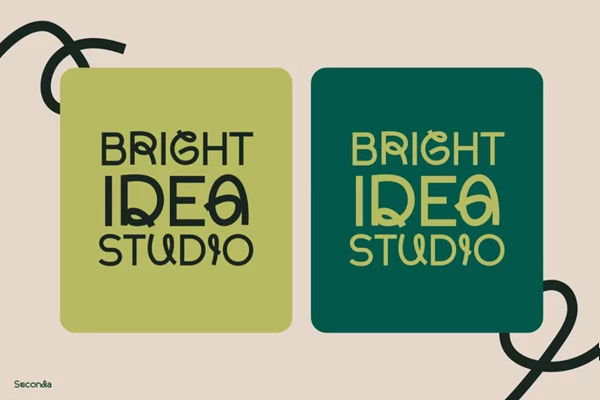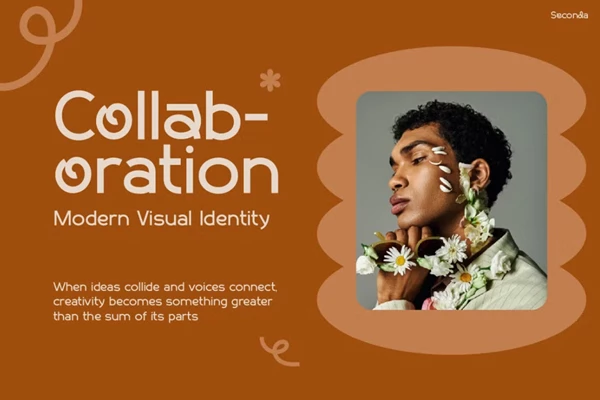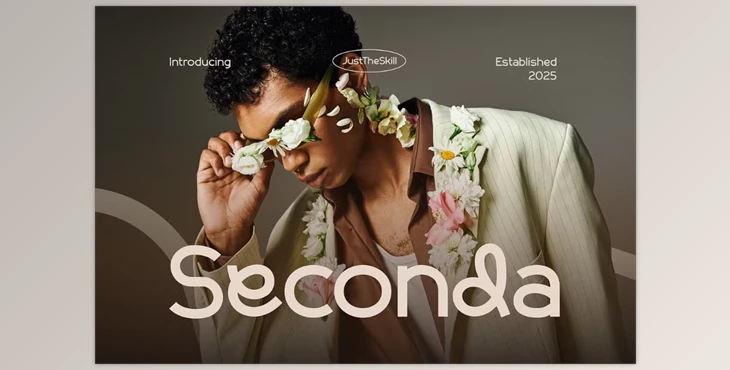
Seconda – Modern Font:
Seconda is a contemporary typeface that combines aesthetics and functionality, making it a perfect choice for a range of projects. Its curves and beautiful yet professional lines create something welcoming yet official. This allows Seconda to be used in numerous applications and settings. It even has a playful quality about its rounded letters without sacrificing readability. All in all, this is an excellent typeface for big titles, branding, and even quotes that need to convey inspiration.
The flexibility of this typeface is one of its best qualities. Many trendy fonts fall victim to limited situations, but Seconda can be used across the board (digitally or printed) without looking out of place. Seconda is aesthetically pleasing, even when in small situations. When it's a large headline or the font for a smaller piece, creators can set Seconda to whatever size they please without challenge to balance or clarity.
There are various projects that would benefit from using this typeface. Seconda Font is suited for branding, social media posts, fashion collabs, and lifestyle endeavors. It's clear lettering is great for Instagram feed posts, Pinterest infographics, and YouTube graphics and thumbnails, as well as printed projects like posters, pamphlets, magazines, invitations, and product packaging. While Seconda has smooth edges and creates a friendly atmosphere, it's also professional enough to be safe with corporate pitches and marketing.
Seconda Font is more than just a typeface - it's a time-saver for creatives. Whether it's for one project or multiple creations thereafter, Seconda can be relied upon without needing another font for theme purposes. Thus, it's an excellent choice for those seeking to create an organic sense of belonging.